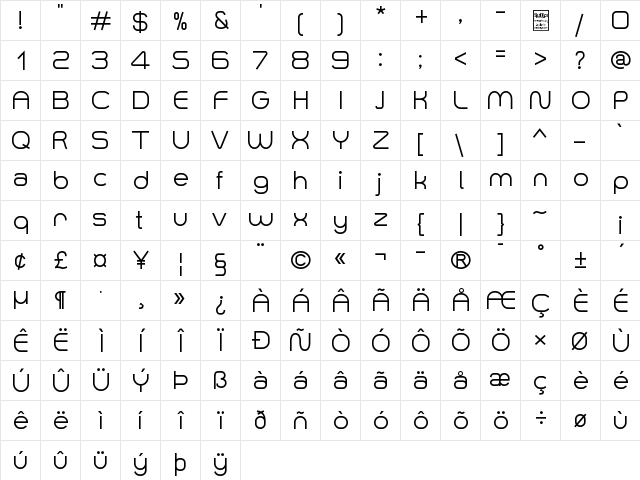
Smush Regular
| Foundry | StudioTypo |
| Designer | Mehmet Abac |
Design Context for Smush Typeface
Smush offers clean, dependable letterforms without strong stylistic allegiance, making it a practical choice for designers who need flexibility.